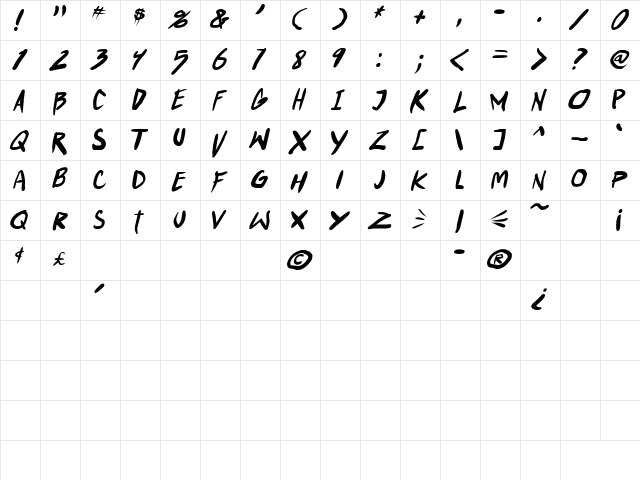
Punkboy is a composed and adaptable typeface that performs quietly and consistently across a wide range of design contexts. The slanted form adds forward momentum and visual energy.
Pro Tip: Use Punkboy for emphasis, pull quotes, and subheadings where its slanted energy can add rhythm to the layout.